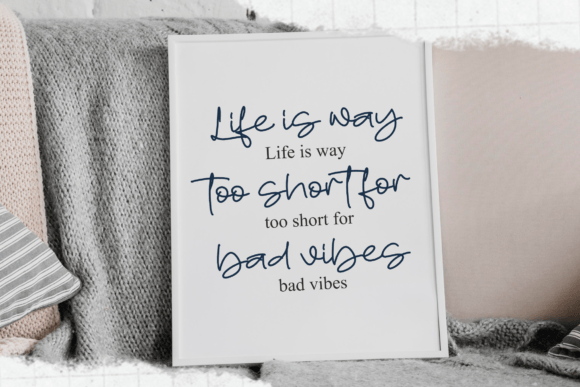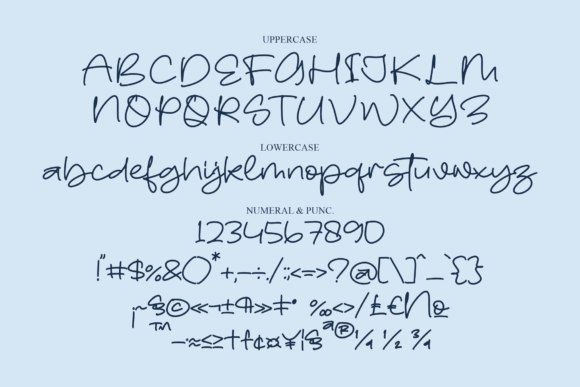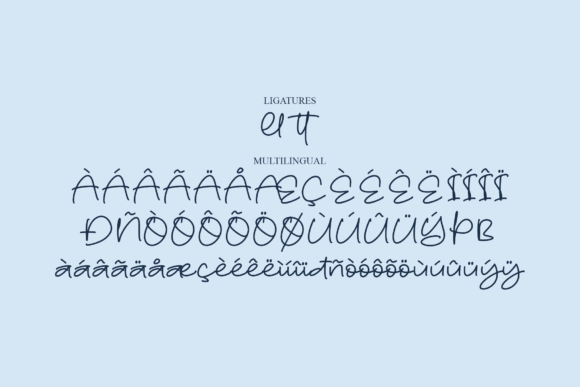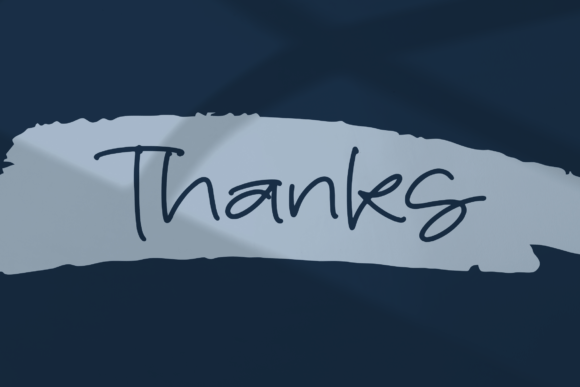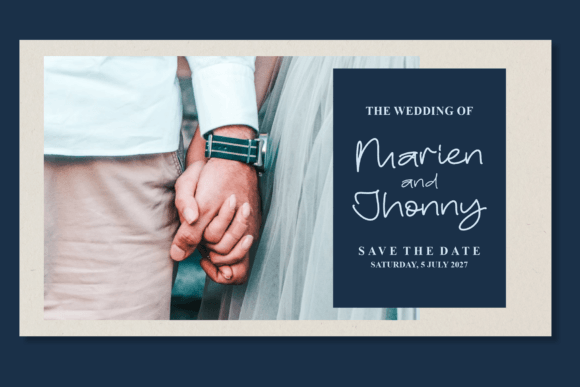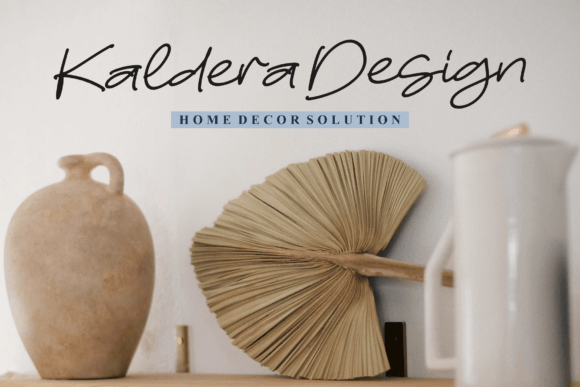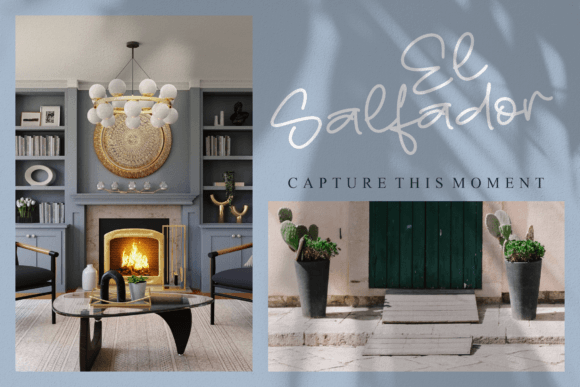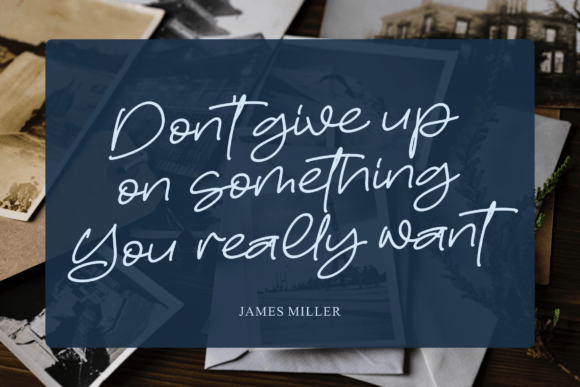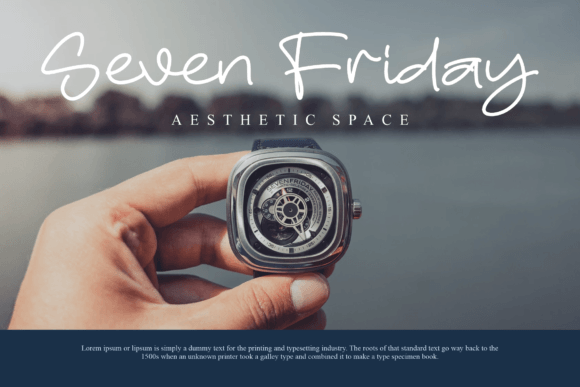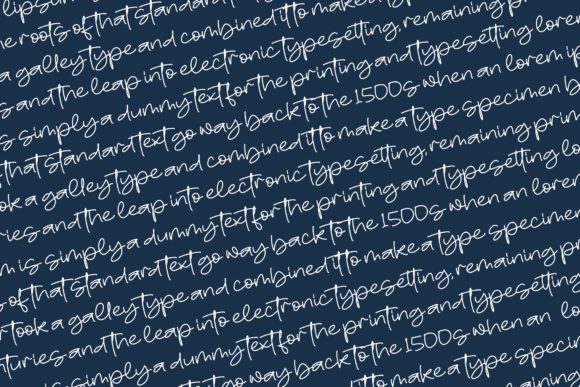
Fluttercy Font
About Fluttercy Font
“Fluttercy is a delightful and sweet cursive handwritten font that adds a touch of elegance to your creative endeavors. This gentle font is designed to look gorgeous on a variety of design ideas, promising to infuse a joyful and romantic touch into each of your projects.
The charm of Fluttercy lies in its graceful and flowing cursive strokes. Every letter dances with a sweet and gentle rhythm, creating an aesthetic that is both captivating and romantic. This font is a visual treat, perfect for projects that demand a soft and charming touch.
Imagine Fluttercy gracing wedding invitations, where its sweet cursive script enhances the romantic atmosphere. The font becomes a storyteller, weaving love and joy into every written word, turning invitations into cherished keepsakes. Its versatility extends to a range of design projects, where it effortlessly elevates the overall aesthetic.
In the realm of creative expression, Fluttercy becomes an ally that adds a layer of sophistication. Whether you’re working on greeting cards, love notes, or any other project that requires a sweet and handwritten touch, this font delivers with grace. It is a testament to the beauty of simplicity, turning ordinary text into a visual celebration.
The gentle curves of Fluttercy make it suitable for a variety of applications. From posters to social media graphics, its romantic demeanor stands out, capturing the attention and hearts of the audience. This font is not merely a typeface; it’s an embodiment of sweetness and charm.
Let Fluttercy be the brushstroke of romance in your design palette. As you immerse yourself in its sweet and cursive elegance, you’ll discover its ability to add a touch of magic to your creative projects. With Fluttercy, every design becomes an expression of joy and romance, making it a perfect choice for those seeking a font that embodies both style and emotion.”